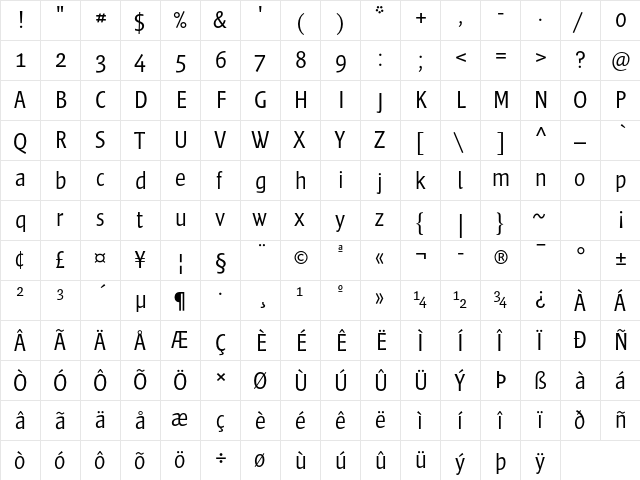
Frisans Std Light
| Designer | Bo Berndal |
Design Context for Frisans Std Typeface
Frisans Std offers clean, dependable letterforms without strong stylistic allegiance, making it a practical choice for designers who need flexibility. The delicate stroke weight brings airiness and refinement to layouts.